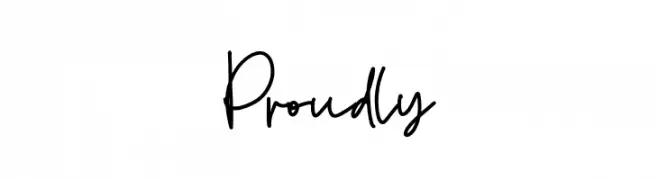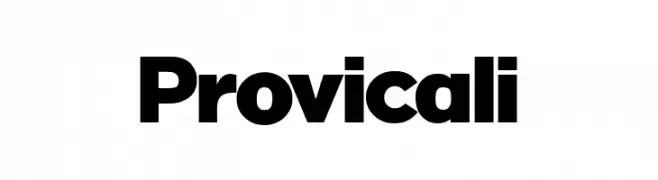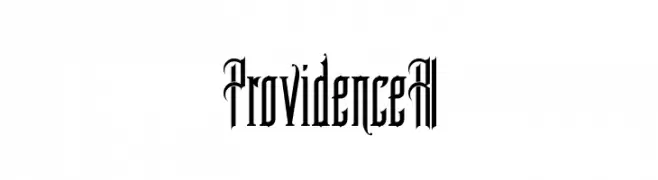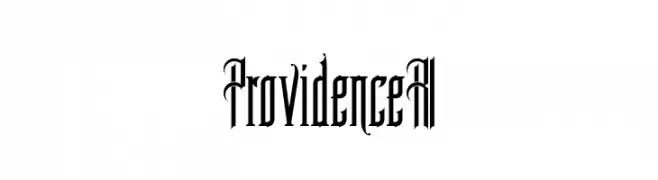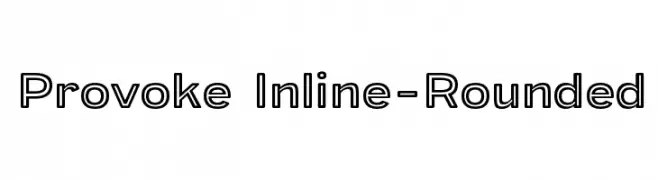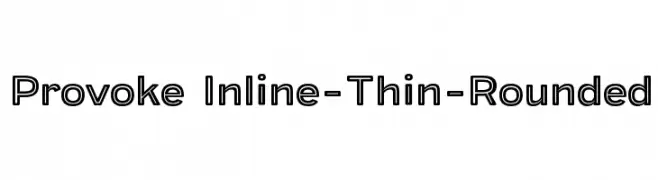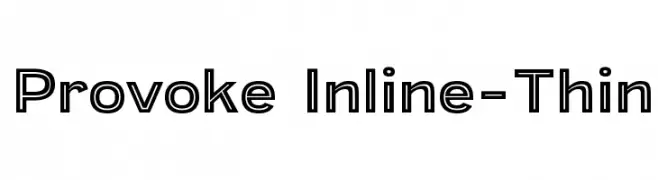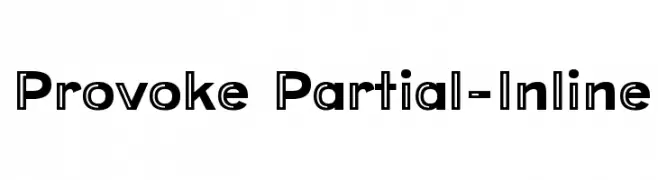
• Proudly
A playful and energetic handwritten font with fluid strokes.
• Provicali
A bold, modern font with thick, rounded characters.
• Providence
A classic serif font with modern elegance and versatility.
• ProvidenceRI
A bold, intricate Blackletter-style font with sharp serifs and ornate detailing.
• ProvidenceRI
A dramatic Blackletter-inspired font with sharp, angular details and a gothic appearance.
• Provisionary
A bold, geometric font with a modern and impactful style.
• Provoke Inline-Rounded
A modern, rounded inline font with a clean and contemporary style.
• Provoke Inline-Thin
A modern, inline typeface with thin strokes and geometric structure.
• Provoke Inline-Thin-Rounded
A modern, thin, rounded inline font with a sleek and geometric design.
• Provoke Partial-Inline
A bold, modern font with a partial inline style for dynamic design.